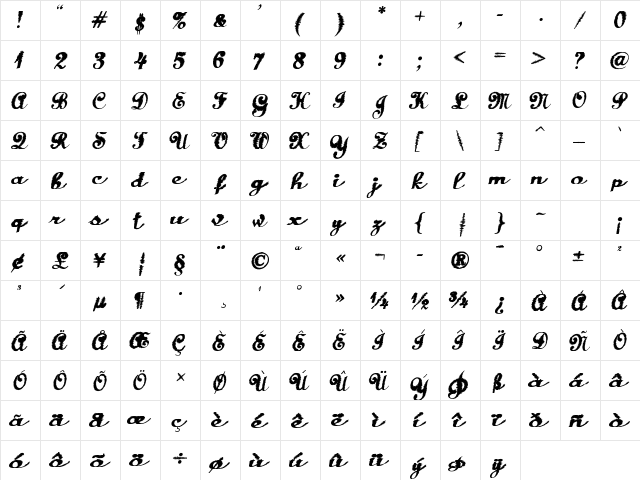
Frankchild Regular
Frankchild trades formality for fun, with bouncy, characterful letterforms that bring warmth and energy to any project.
Font Pairing: Pairs well with a rounded or humanist sans for body copy, maintaining the friendly tone without relying on Frankchild to carry extended reading.
Pro Tip: Avoid using Frankchild for long passages of text — it works best for headlines, labels, and short calls to action.